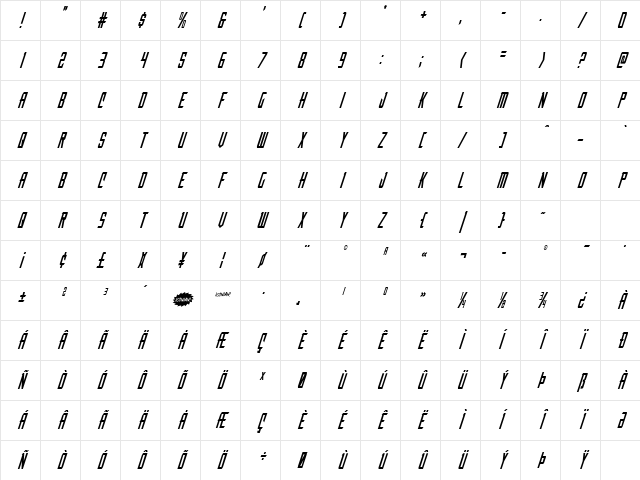
Nemesis Enforcer brings high-energy athletic personality to the page - its confident, muscular forms are built for impact. The slanted form adds forward momentum and visual energy. Its narrow stance lets it pack a punch even in space-constrained designs.
Pro Tip: Use Nemesis Enforcer in all-caps headlines where its athletic energy can fully express itself. Pair with a solid, simple sans for supporting text.